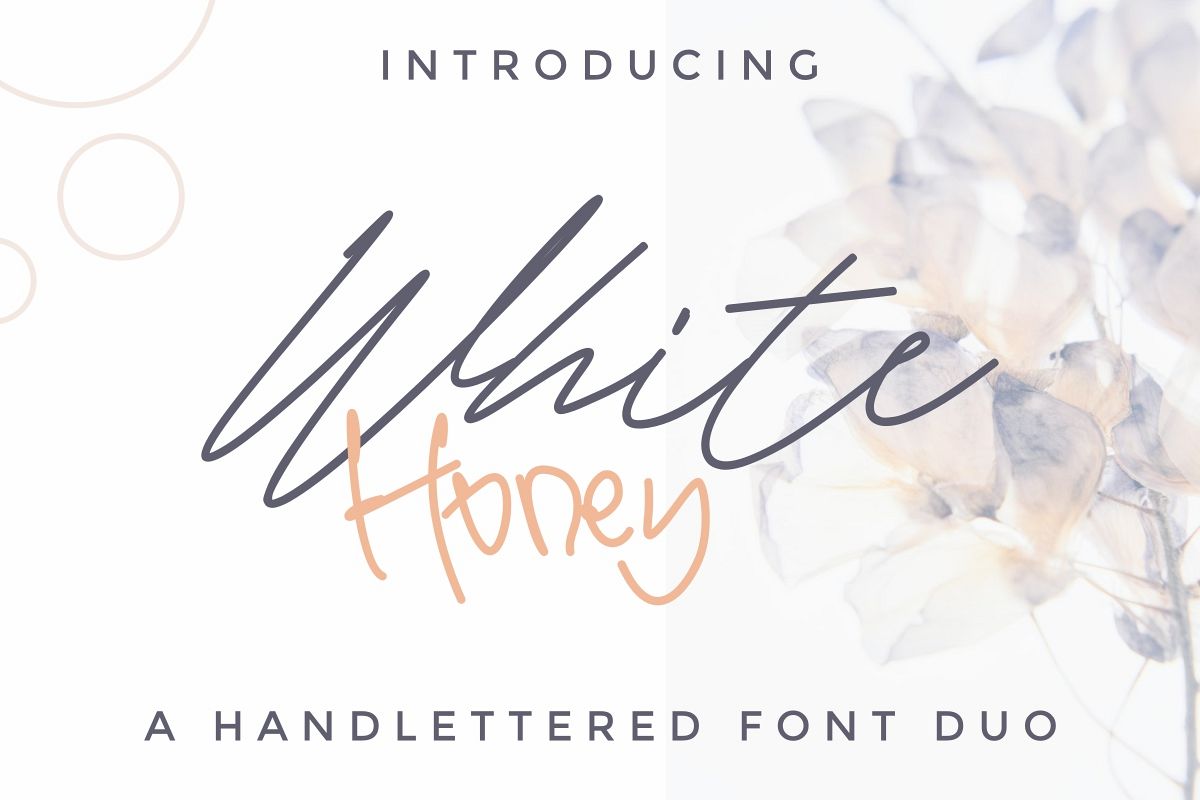
WhiteHoney
Introducing our newest font : WhiteHoney Font Duo !
This is a new script calligraphy style font. It has a beautiful and stylish glyphs. Will be perfect for any designs projects.On the package, You will get :
WhiteHoney Font Duo has two styles : handwritting script and sans serif fonts. Alternatives some glyphs. It is also support multi languagesWhiteHoney Font Duo has a unique elegant styles that will be perfect for branding, logotype, wedding, advertising, promotion, photography or any other projects. It is so elegant, classic and beautiful.This font will Work on PC & Mac with Simple installations. Accessible in the Adobe Illustrator, Adobe Photoshop, Adobe InDesign, even work on Microsoft Word. It’s also PUA Encoded Characters – Fully accessible without additional design software.Purchase with confidence! =)